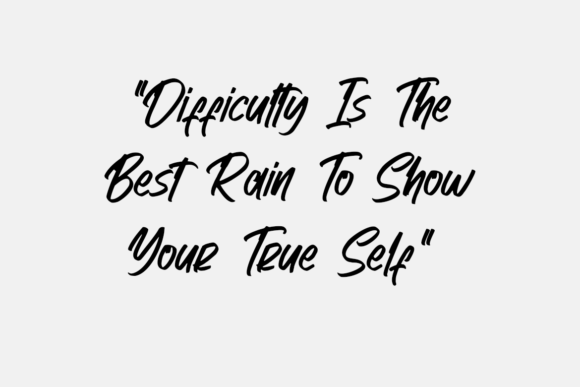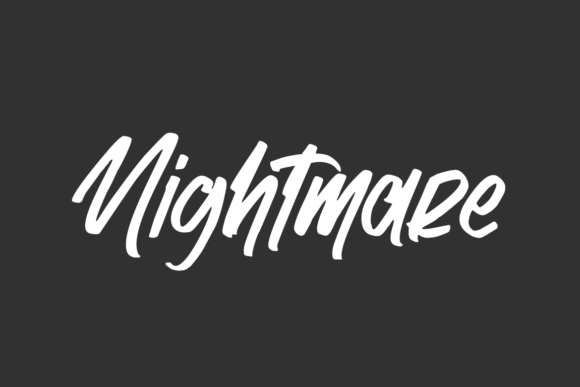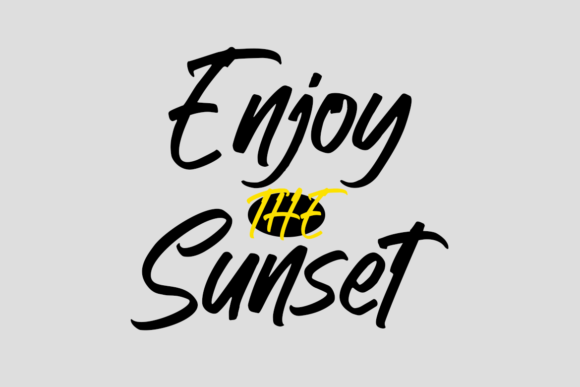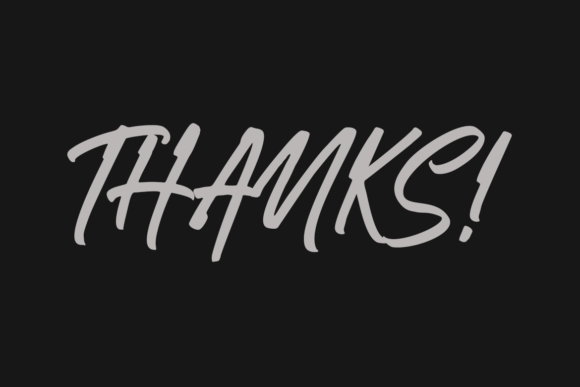
Introduction to Belenks Font
Have you ever stumbled upon a beautiful handwritten quote on a t-shirt or a mug, and you instantly wanted to create something similar? For designers, finding the perfect font can be a game-changer for their creative projects. That’s where the Belenks Font comes in – a high-quality, free download that’s perfect for adding a personal touch to your designs.
With its playful, brushed handwritten style, the Belenks Font is ideal for a variety of projects, from social media graphics to custom tote bags. Its transparent background makes it easy to overlay on any image or design, giving you complete control over your creative vision.
Whether you’re a seasoned designer or just starting out, the Belenks Font is a valuable resource that’s sure to elevate your designs and make them stand out from the crowd.
Key Features of Belenks Font
- High-quality design resource for creative projects, available for free download
- Unique, modern font style with a transparent background for flexible design usage
- Includes multiple font sizes, ranging from 14pt to 72pt, for versatile application
- High-resolution design, suitable for print and digital media, with a minimum resolution of 300 DPI
- Designed for use in various creative projects, including logos, graphics, and typography
Honest Review: Belenks Font
I recently stumbled upon the Belenks Font and I’m excited to share my thoughts on this design resource. As a designer, I’m always on the lookout for high-quality fonts that can elevate my creative projects. The Belenks Font definitely delivers.
- ✨ Unique Design: The Belenks Font boasts a distinctive and modern design that sets it apart from other fonts in its category.
- ✨ Transparent Background: The font’s transparent background makes it easy to use on any design project, whether it’s a logo, icon, or graphic element.
However, I do have a few minor complaints:
- ⚠️ Limited Character Set: The Belenks Font is a relatively simple font, which means it may not be suitable for projects that require a wide range of characters or special glyphs.
Overall, the Belenks Font is a solid addition to any designer’s toolkit. While it may have some limitations, its unique design and free availability make it an excellent choice for creative projects. I’d definitely recommend it to anyone looking for a modern and versatile font.
To get the most out of the Belenks Font, consider the following tips:
- Use the font with a transparent background to create visually appealing designs.
- Combine the Belenks Font with high-quality images to create engaging creative projects.
The Belenks Font is ideal for various design projects, including:
- UI/UX design
- Branding
Alternatives to Belenks Font
The Great Vibes Font is a high-quality, cursive script font that is perfect for creative projects that require a touch of elegance. It’s a great alternative to Belenks Font for designers who want to add a sense of sophistication to their designs. Great Vibes Font is available for free download and features a transparent background, making it easy to use in various design applications.
When to use: Wedding invitations, greeting cards, and other formal designs that require a touch of elegance.
Comparison to Belenks Font: Great Vibes Font has a more refined and sophisticated look compared to Belenks Font, making it a great choice for designers who want to add a sense of luxury to their designs.
The Alex Brush Font is a beautiful, handwritten font that is perfect for designers who want to add a personal touch to their creative projects. It’s a great alternative to Belenks Font for designers who want to create a unique and eye-catching design. Alex Brush Font is available for free download and features a transparent background, making it easy to use in various design applications.
What resolution is recommended for using the Belenks Font?
We recommend using the Belenks Font at a resolution of 300 DPI or higher for optimal results. This will ensure that the font remains crisp and clear, even when used in high-quality design projects.